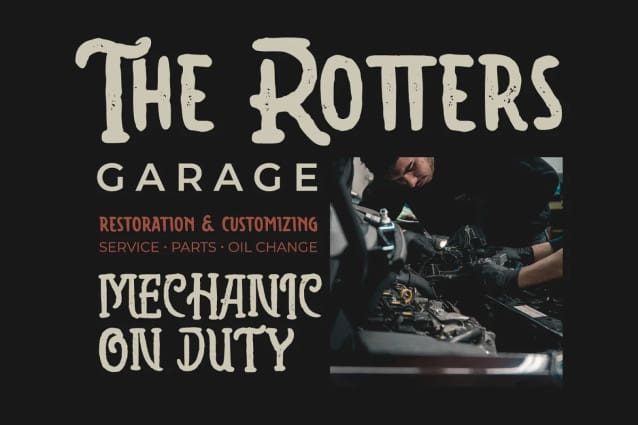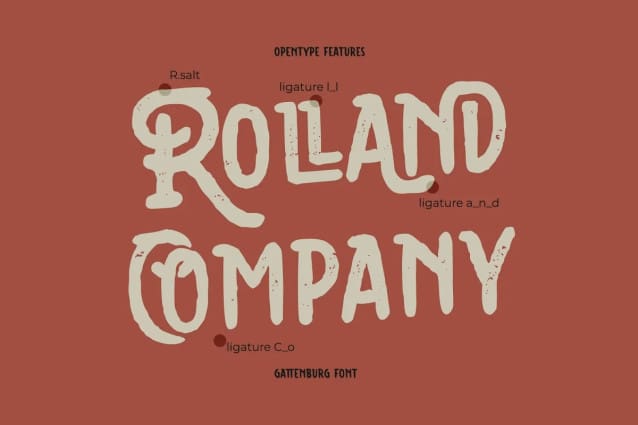
Gattenburg Display Font
Gattenburg Display Font a display font that artfully marries vintage charm with a little bit rustic vibes. The proportions of the letters are deliberately uneven, giving each character its distinct personality. This irregularity lends Gattenburg a warm and handcrafted quality, inviting readers to connect with its character.
One of the hallmark characteristics of Gattenburg is its round and soft shapes. Unlike more rigid typefaces, Gattenburg favors curves and smooth lines, creating a sense of approachability and friendliness. These gentle, round shapes soften the vintage aesthetics, adding a touch of nostalgia without sacrificing readability.
What truly defines Gattenburg is its rough effect. The font carries a delightful worn and weathered appearance, as if it has endured the test of time. This roughness adds authenticity and character. In addition, Gattenburg gives ornaments as a special bonus.